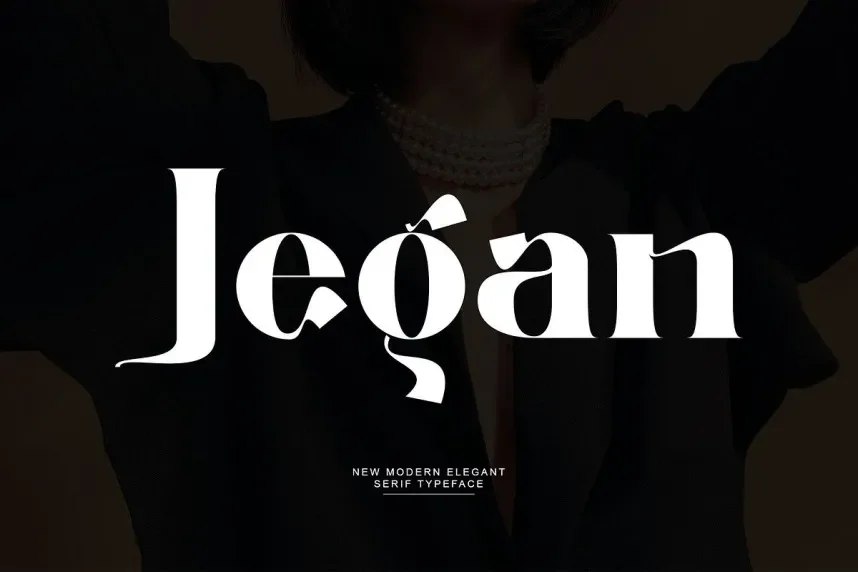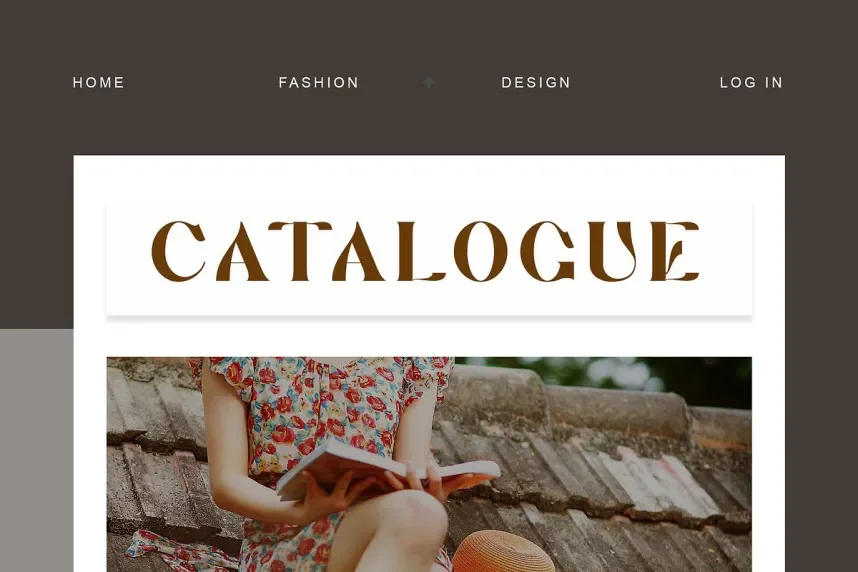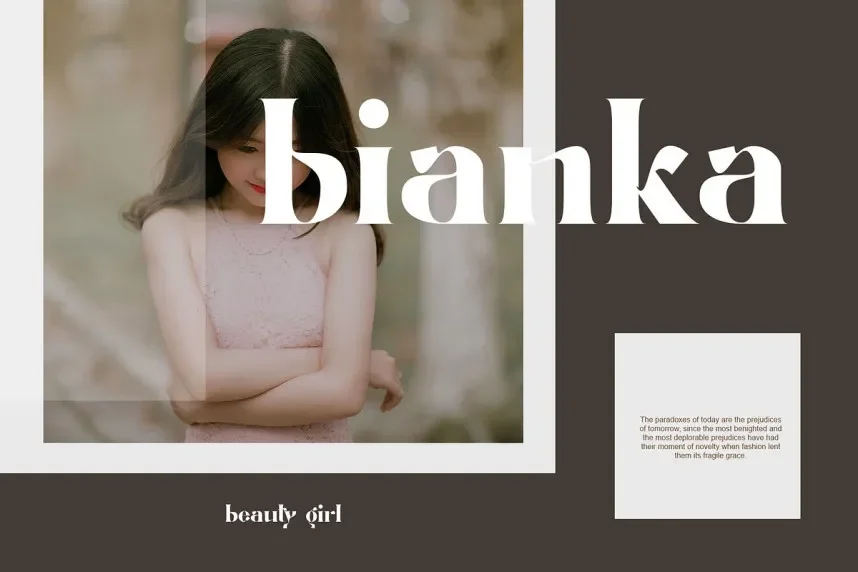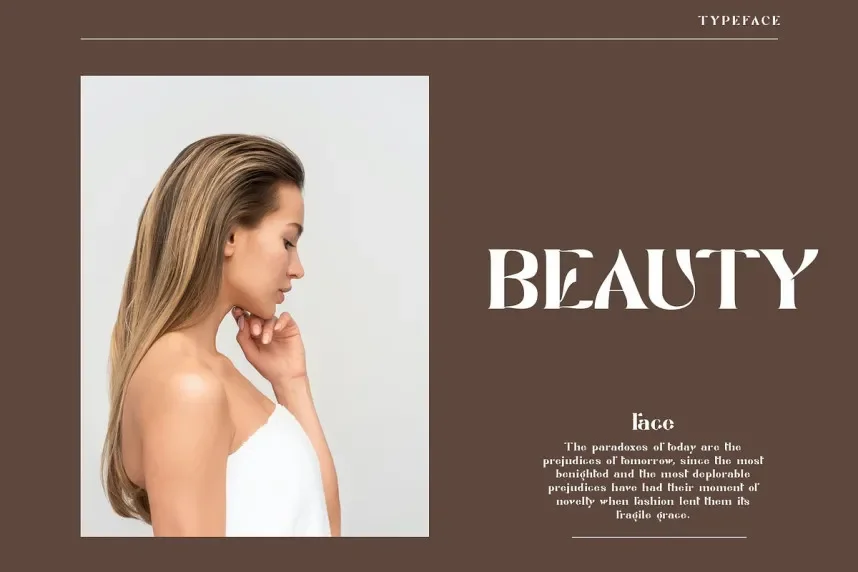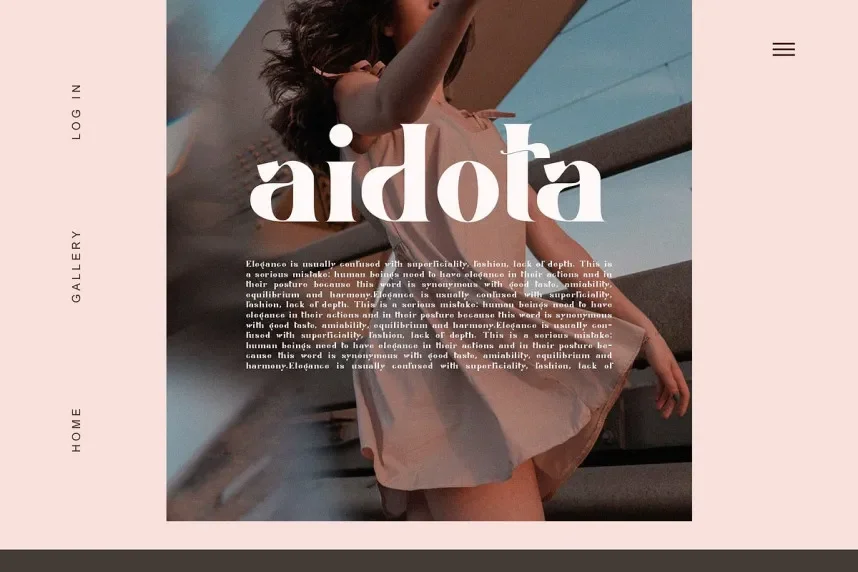
Jegan Font is a sleek sans-serif typeface designed for clean, modern designs. Its smooth, straight lines and minimalistic structure make it highly readable, making it a great choice for branding, digital design, and user interfaces.